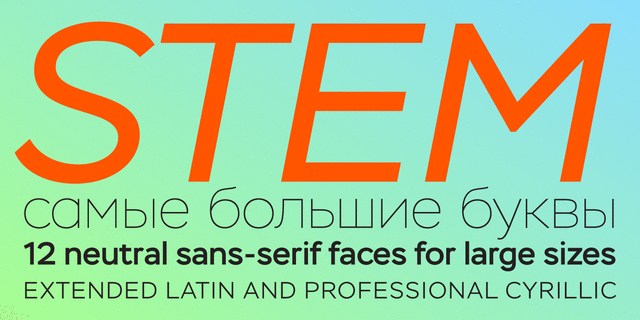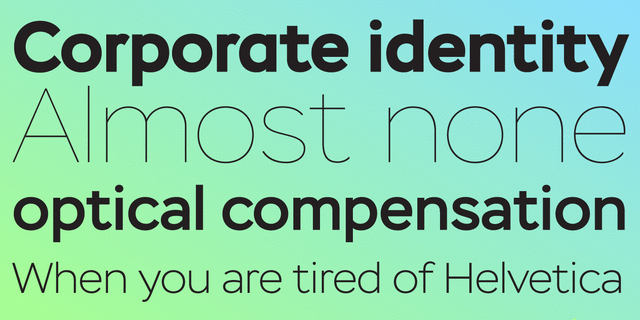
Stem (12 fonts)
Stem is a geometric sans serif with semi-closed aperture and large x-height. 12 faces of it, including upright and true italic faces of different weights, are intended primarily for large point sizes. The Stem family will be supplemented with faces for text and caption setting. The font was designed by Alexandra Korolkova with the assistance of Maria Selezeneva and Isabella Chaeva. Released by ParaType in 2014.